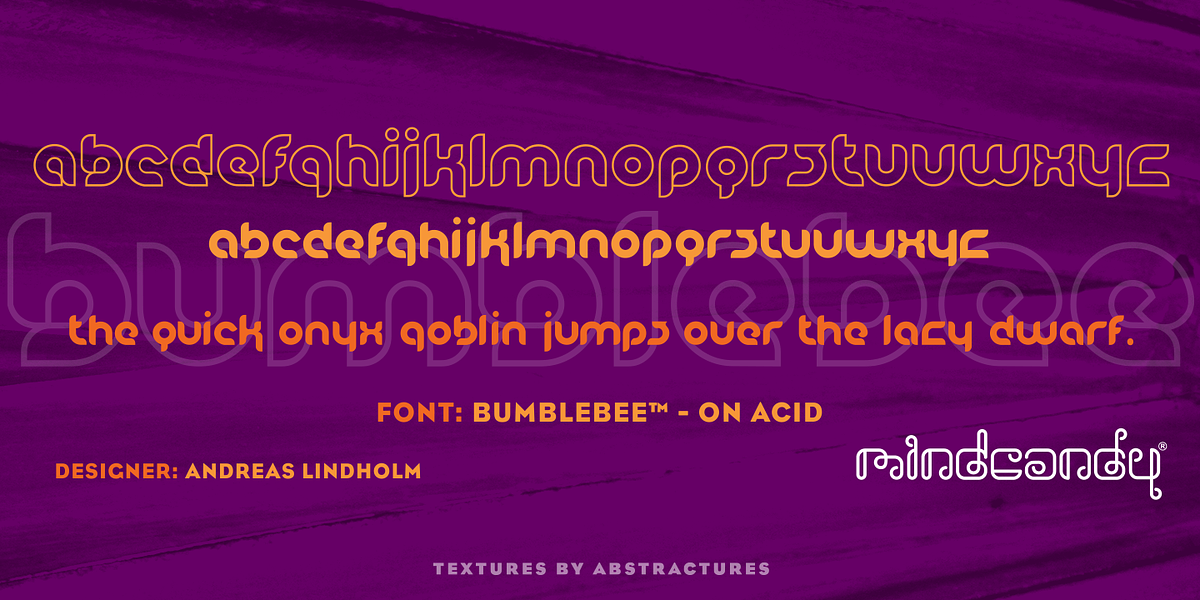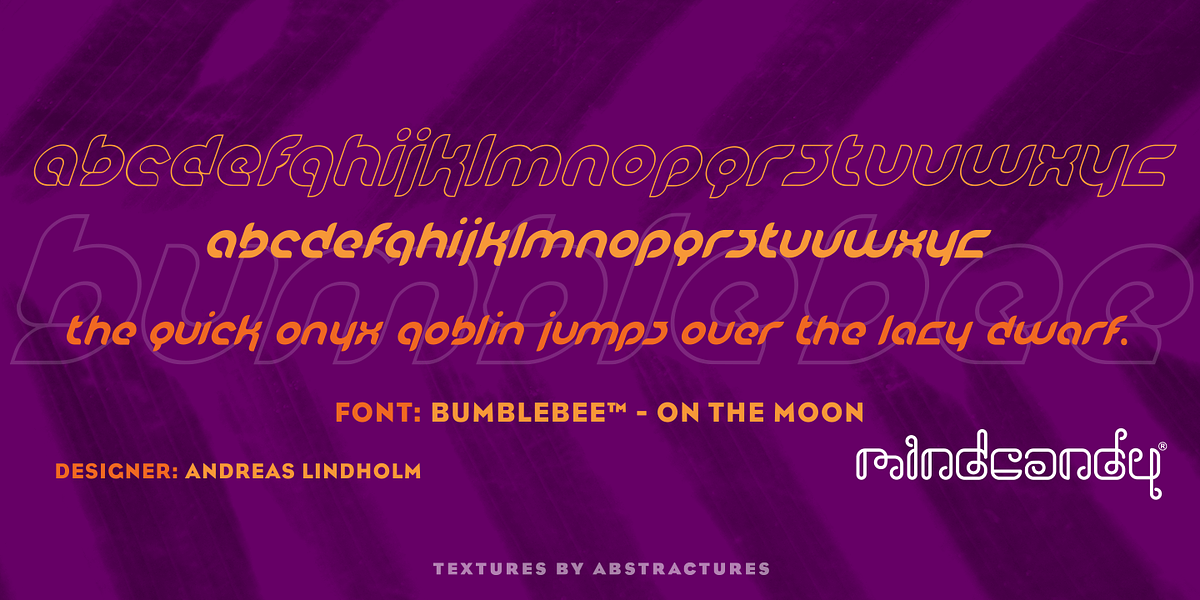
BumbleBee™
This lowercase-only font is a retrofuturistic geometric sans serif typeface designed for display purposes. Its bold and playful personality makes it well-suited for headlines, branding, and other design applications where a strong visual impact is desired.